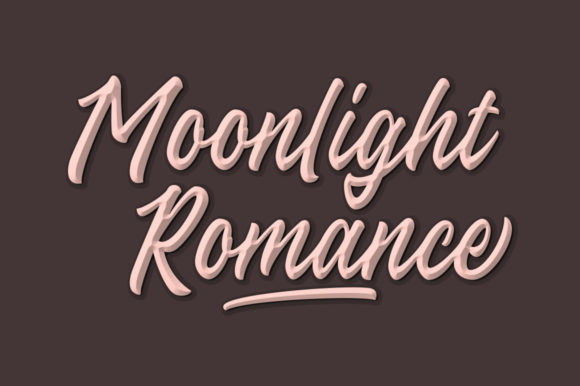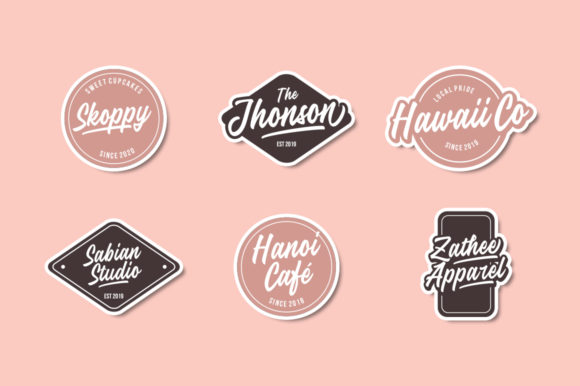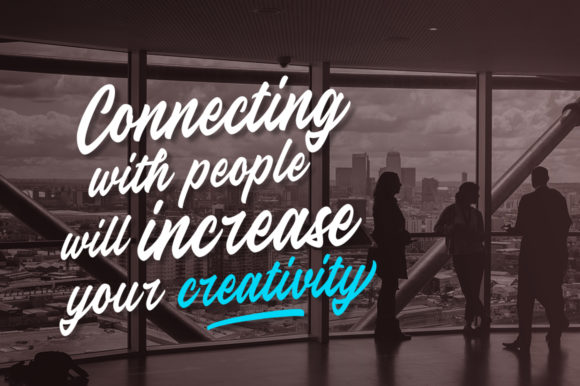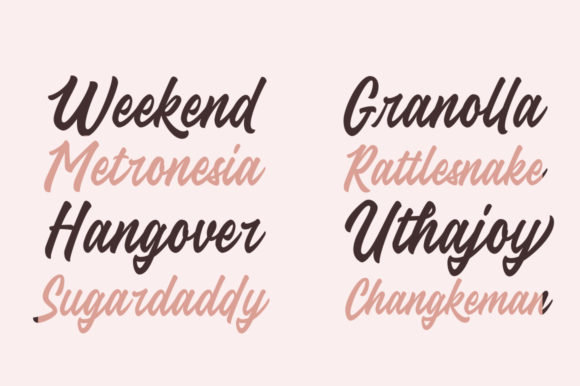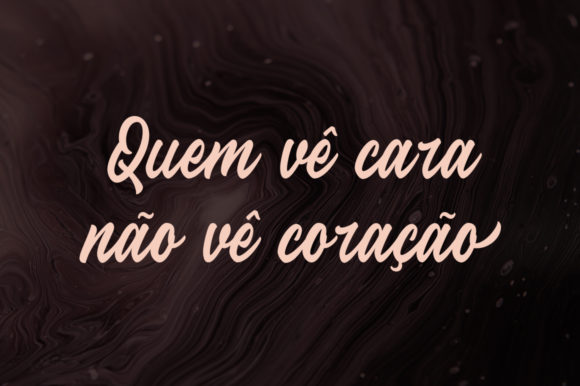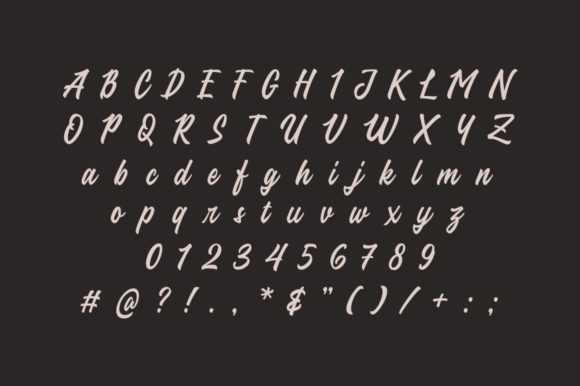
Introduction to Shelda Font
Have you ever been working on a creative project, brainstorming ideas, and suddenly, a spark of inspiration hits you? That’s exactly what happened when we discovered the Shelda Font. This charming, handwritten font is the perfect fit for all your logos, branding, social media, and crafty DIY projects. Its clean and quirky design makes it a standout in the world of typography.
What makes Shelda Font truly special is its high-quality design, created using a brush pen. This attention to detail gives the font a unique, organic feel that’s hard to find in other fonts. Plus, its transparent background makes it easy to layer and customize, making it a valuable design resource for any project.
Key Features of Shelda Font
- High-quality, professional design suitable for creative projects and commercial use.
- Includes a range of characters, including uppercase and lowercase letters, numbers, and special symbols.
Honest Review: Shelda Font
As a designer, I’m always on the lookout for high quality design resources to elevate my creative projects. Recently, I had the chance to try out the Shelda Font, and I’m excited to share my honest review.
What works well: ✨ The Shelda Font is incredibly versatile, making it perfect for a wide range of creative projects. Its clean and modern design makes it easy to read, even on transparent backgrounds. I loved how it added a touch of sophistication to my latest design concept.
Some of the key features that make the Shelda Font stand out include:
- Transparent background, making it easy to use on any design
⚠️ One limitation I noticed was the font’s limited character set. While it’s still a great choice for most design projects, it might not be the best option for those requiring a more extensive character set.
Tips for Getting the Most Out of Shelda Font
Experiment with different font sizes and styles to achieve the desired look for your creative project. Combine Shelda Font with other design elements to create a unique and eye-catching design. Consider using Shelda Font as a header or title font to draw attention to your design.
Shelda Font is ideal for use in graphic design, digital art, and web design projects. Its high-quality aesthetic and transparent background make it a versatile design resource for a wide range of creative applications.